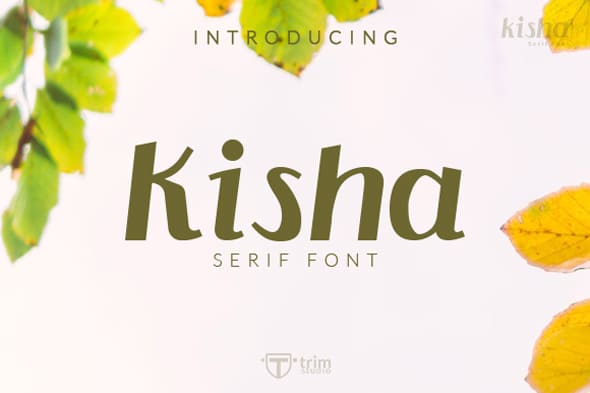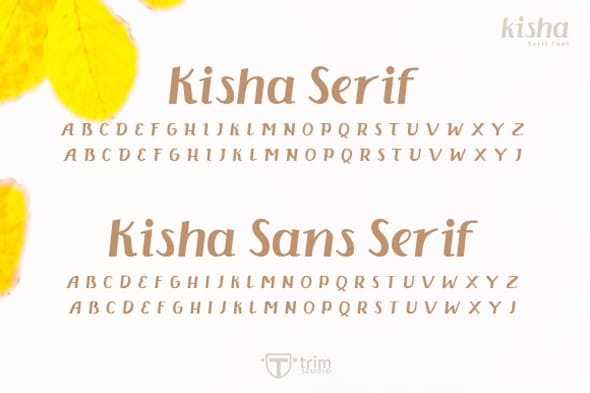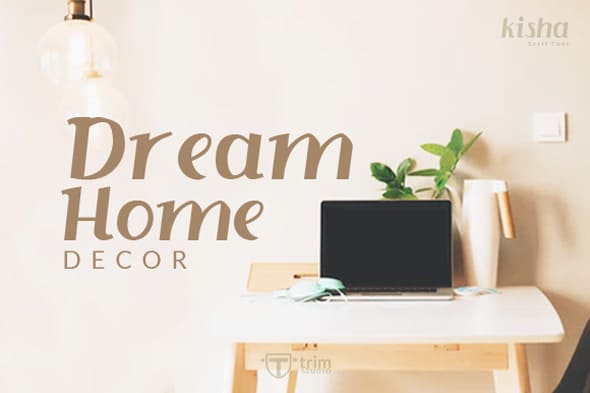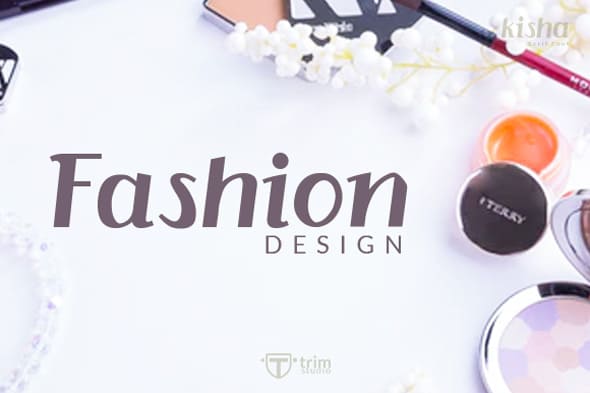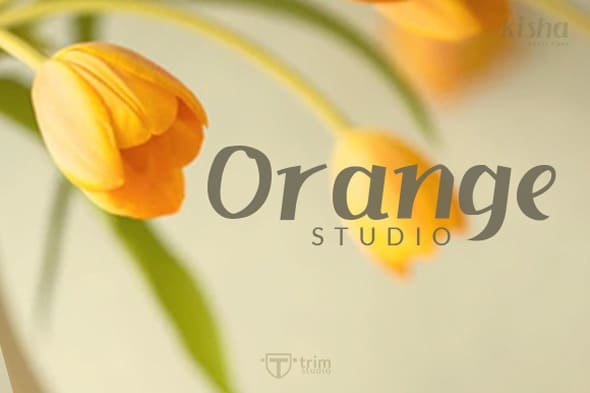
The Kisha is a hand drawn serif font which comes in 2 weights: a serif and sans version. It’s the perfect font for showing the beauty of a design in a simple way.